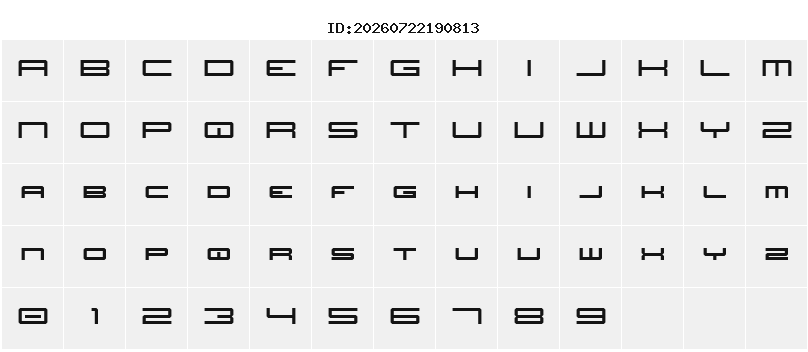
JH_TITLES Preview
• Font Name: JH_TITLES
• Font Style: Nominal
• Font ID: JH_TITLES | Nominal | ©2001 Joiro Hatagaya
• Full Font Name: JH_TITLES Nominal
• Version: 1.10 | 05.01.2001
• PostScript Name: JHTITLESNominal
• Character Count: 86
About JH_TITLES.ttf
JH_TITLES.ttf is a modern, elegant sans-serif font designed for ultimate readability and visual harmony. Perfect for branding, headlines, web design, and print materials.